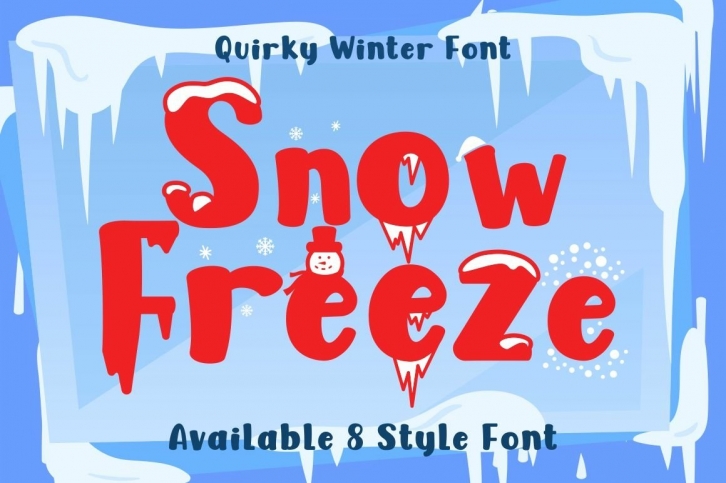
Snow Freeze is a beautiful font that was designed by PutraCetol Studio. It's a great choice for designers and creatives who need such a font. It was released on September 30, 2021 and the file size is 16.89 MB. Snow Freeze may give a more youthful, expressive and casual look to your project. It is a very beautiful, refined, elegant, and high-quality font.